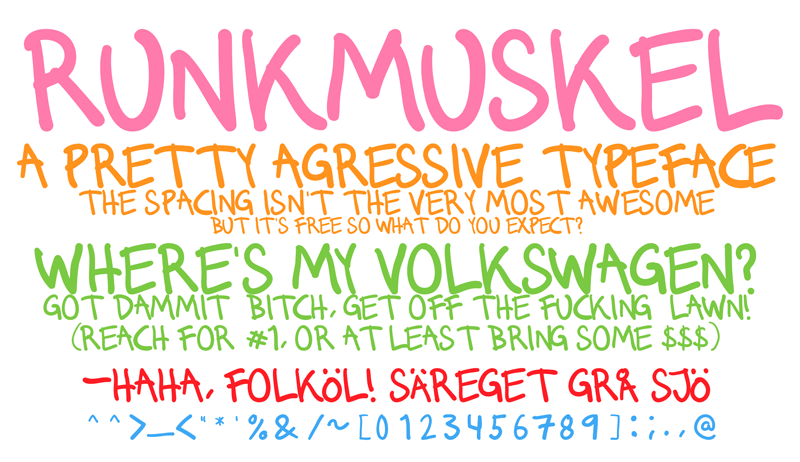
Font name: | Runkmuskel |
Author: | Anton Bohlin |
Note by Anton Bohlin | |
A handwritten cartoony all-caps font with the most common special characters. Released under CREATIVE COMMONS Attribution-ShareAlike 3.0 Unported (CC BY-SA 3.0 http://creativecommons.org/licenses/by-sa/3.0/ |